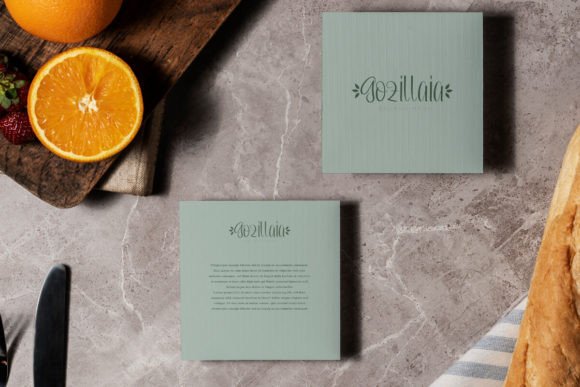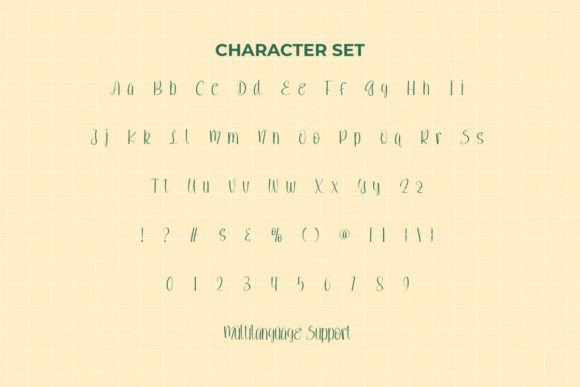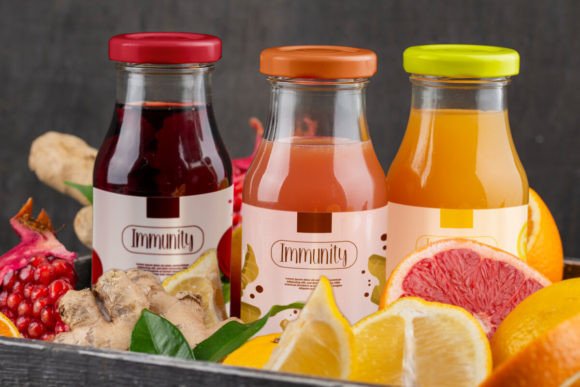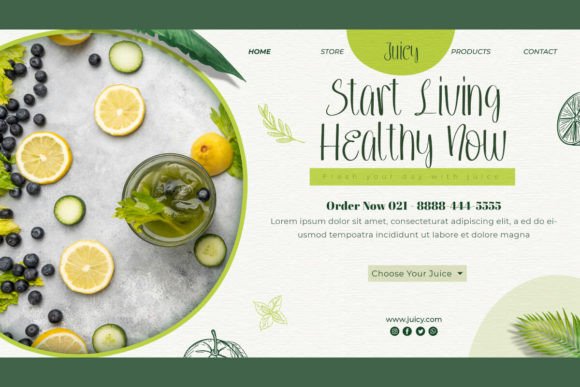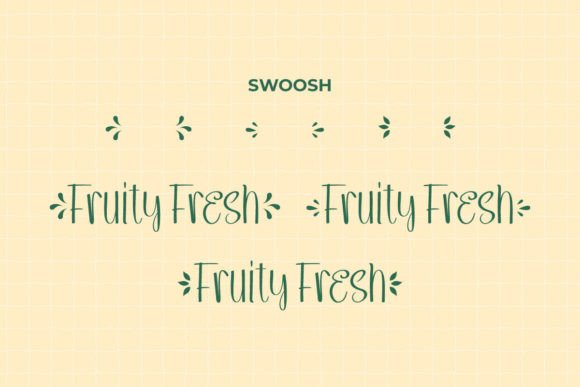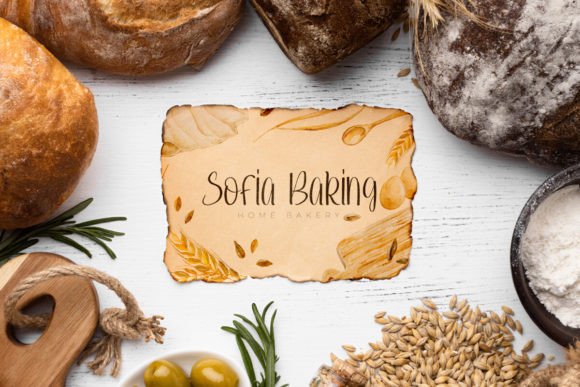
The Ultimate Design Hack: Fruity Fresh Font
Have you ever been stuck on a design project, scrolling through font after font, trying to find that perfect match? I know I have! It was a typical Wednesday morning when I received a call from a client who needed a bold, eye-catching font for their new bakery’s signage. The catch? It had to scream ‘fresh’ and ‘delicious.’ That’s when I stumbled upon the Fruity Fresh Font – a playful handwriting display font that instantly transported me to a world of colorful cafes and tantalizing treats.
First Impressions: A Review of Fruity Fresh Font
- ✨ Playful yet Professional: Fruity Fresh Font strikes the perfect balance between fun and sophistication, making it suitable for a wide range of industries.
- ✅ Ease of Use: This font is incredibly easy to read, even at smaller sizes, which is a huge plus for designers working on various projects.
- 💥 Versatility: From advertisement agencies to bakeries, cafes, and fashion brands, Fruity Fresh Font can be used across multiple industries.
While Fruity Fresh Font is an amazing addition to any design project, there are a few things to keep in mind:
- ⚠️ Legibility at Very Small Sizes: Like many script fonts, Fruity Fresh may lose some legibility when used at very small sizes (below 10pt). It’s best used at larger sizes where its charm can shine.
- 🤔 Overuse: While the font is incredibly versatile, using it excessively throughout a design can make it feel less special. Balance is key.
The Story Behind Fruity Fresh Font
Fruity Fresh Font was inspired by the traditional signs you’d see outside your favorite local restaurants and cafes. The designer aimed to capture the cheerful, welcoming essence of these signs in a font that’s both fun and professional. The result is a font that feels both nostalgic and fresh – perfect for any project looking to convey warmth and approachability.
Q: What industries is Fruity Fresh Font best suited for?
A: Fruity Fresh Font is incredibly versatile and can be used across various industries, including advertisement agencies, bakeries, cafes, event or festival designs, fashion, furniture, printing, publishing, restaurants, skincare, and more.
Q: Does Fruity Fresh Font support OpenType features?
A: Yes, Fruity Fresh Font supports OpenType features, including glyphs and stylistic alternates, which can be accessed through compatible software like Adobe Photoshop, Illustrator, and Canva.
Q: Is Fruity Fresh Font easy to read?
A: Absolutely! One of the standout features of Fruity Fresh Font is its readability, even at smaller sizes, making it perfect for a wide range of design applications.